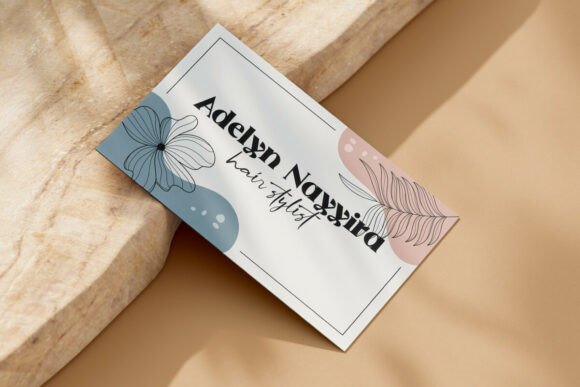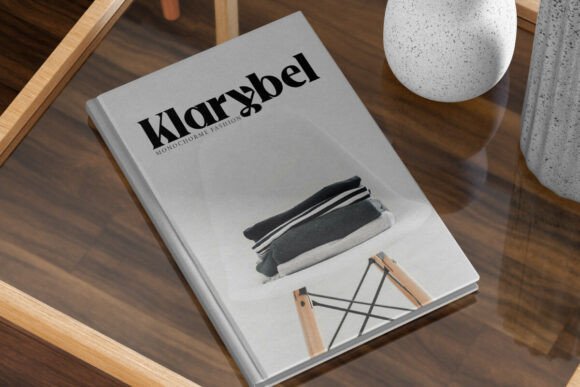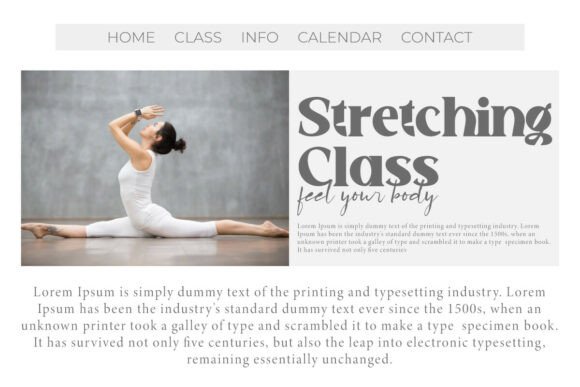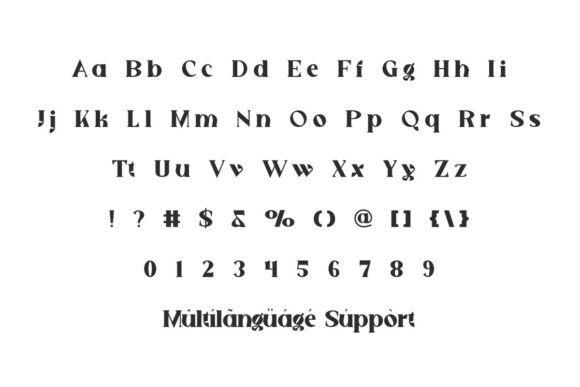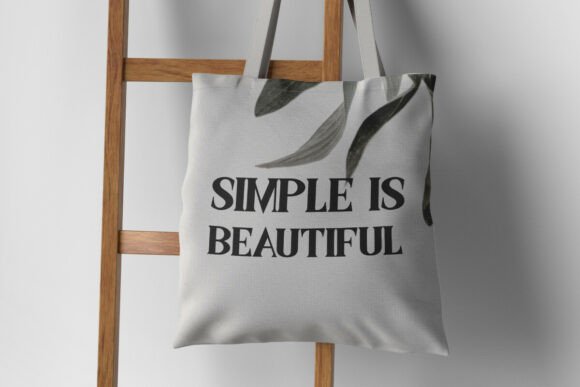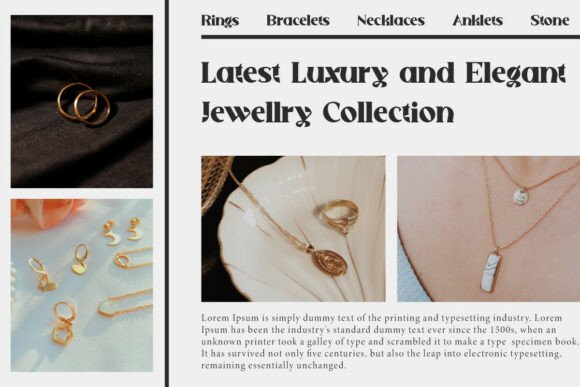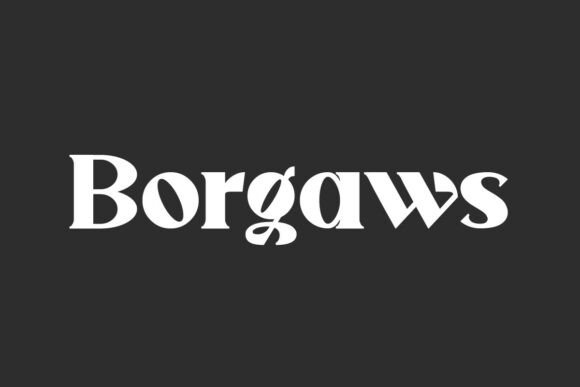
Introducing Borgaws Font: A Versatile Typeface for Bold Designs
Have you ever been in the middle of a design project, and suddenly, you realize that the font you’ve chosen just isn’t working? I recall a particularly frustrating experience when I was working on a branding project for a trendy boutique. My client wanted a font that was both modern and elegant, but everything I tried seemed to fall flat. That’s when I discovered Borgaws Font, a game-changing typeface that has since become a staple in my design toolkit.
What Makes Borgaws Font Special?
Borgaws Font is a striking combination of display, sans, and serif styles in one versatile typeface. Its clean, geometric design features sharp lines and balanced curves, making it perfect for bold branding, editorial layouts, packaging, logos, posters, and high-impact titles. Whether you’re creating a minimalist logo or a modern magazine spread, Borgaws delivers style and clarity.
Here’s what I love about Borgaws Font:
- ✨ Versatility: This font seamlessly blends display, sans, and serif styles, making it adaptable to various design projects.
- ✅ Clean Design: The geometric design with sharp lines and balanced curves ensures that your text looks crisp and professional.
- 💡 High-Impact Titles: Borgaws Font is perfect for creating bold, eye-catching titles that grab attention.
- 📦 Multipurpose: It’s suitable for a wide range of applications, including brochures, labels, logo design, magazine covers, mockup templates, packaging, posters, quotes, t-shirts, and websites.
And here are a few minor quirks to consider:
- 🤔 Occasional Kerning Issues: As with any font, you may encounter some kerning issues, especially when using it at smaller sizes.
- ⚠️ Limited Availability of Extended Characters: While Borgaws Font includes a full set of uppercase and lowercase basic characters, numbers, punctuation, and symbols, it may not have an extensive range of extended characters.
Borgaws Font was designed with the intention of creating a versatile typeface that could cater to various design needs. The designer aimed to blend the elegance of serif fonts with the modernity of sans-serif fonts, resulting in a unique and bold font that’s perfect for making a statement.
| Author | vintype |
- Q: What makes Borgaws Font unique?
- A: Borgaws Font is a unique blend of display, sans, and serif styles, making it a versatile choice for various design projects.
- Q: Is Borgaws Font suitable for digital media?
- A: Yes, Borgaws Font is designed to work well in both digital and print media, making it perfect for a wide range of applications.
- Q: Does Borgaws Font include OpenType features?
- A: Yes, Borgaws Font includes OpenType features, glyphs, and stylistic alternates, giving you more creative control over your design.